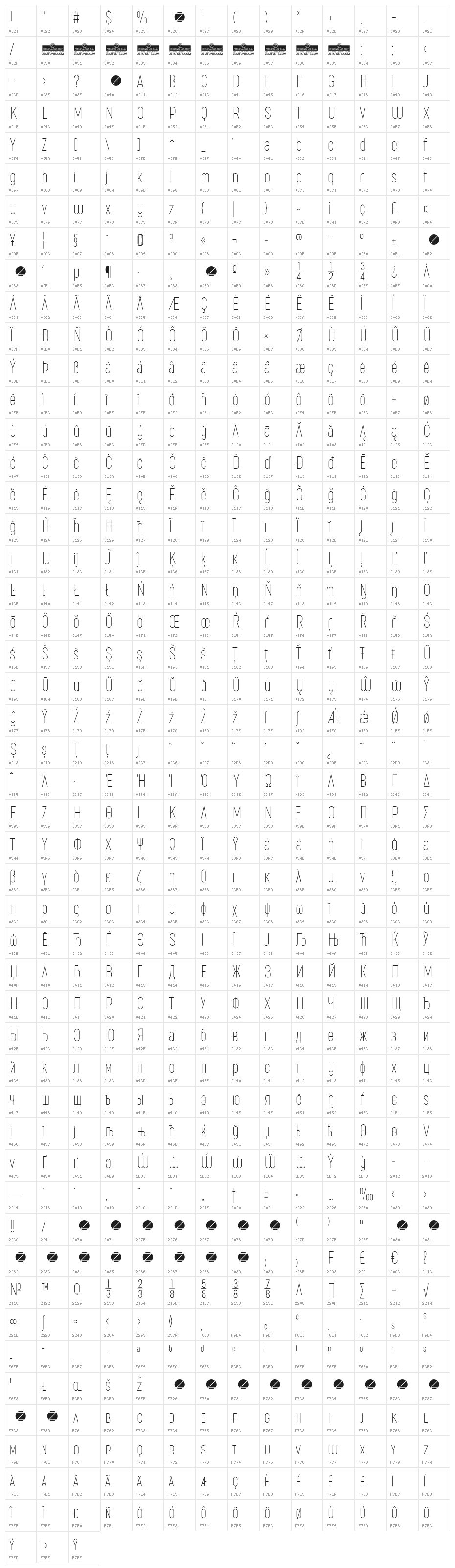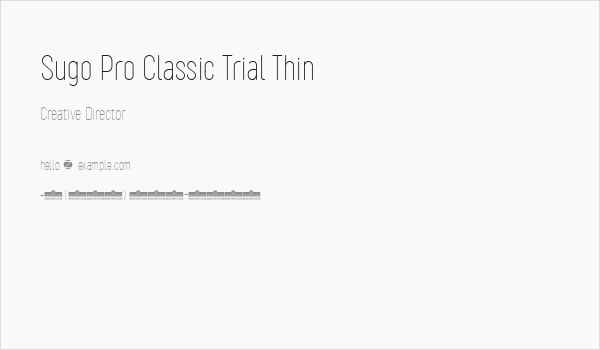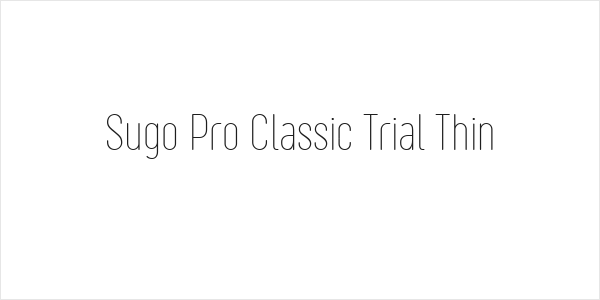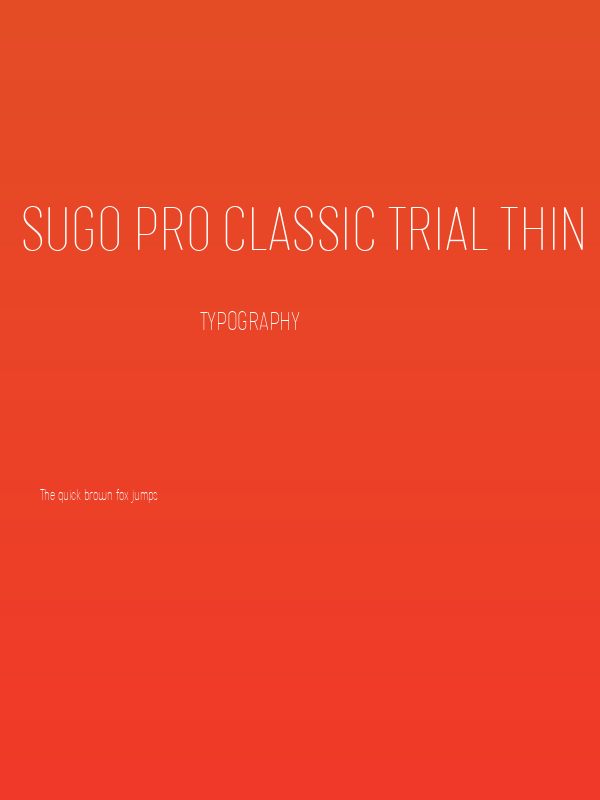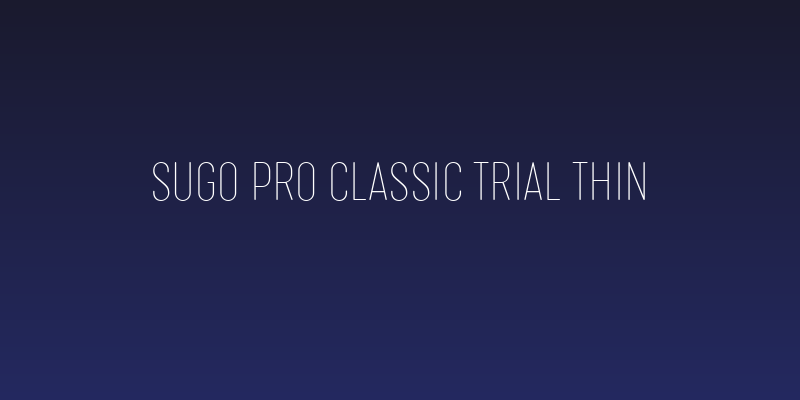
Sugo Pro Classic Trial Thin Font
Sugo Pro Classic Trial Thin Description
This font features a sleek and modern design with thin, elongated letterforms that exude elegance and sophistication. The characters are evenly spaced, providing a clean and airy appearance. The uppercase letters are tall and narrow, while the lowercase letters maintain a consistent height, contributing to a harmonious look. The numerals and special characters are designed with the same thin strokes, ensuring uniformity across all elements. This font's minimalistic style makes it versatile for various design applications.
| Proposed Projects | Ideal for fashion magazines, luxury branding, minimalist websites, and modern editorial layouts. |